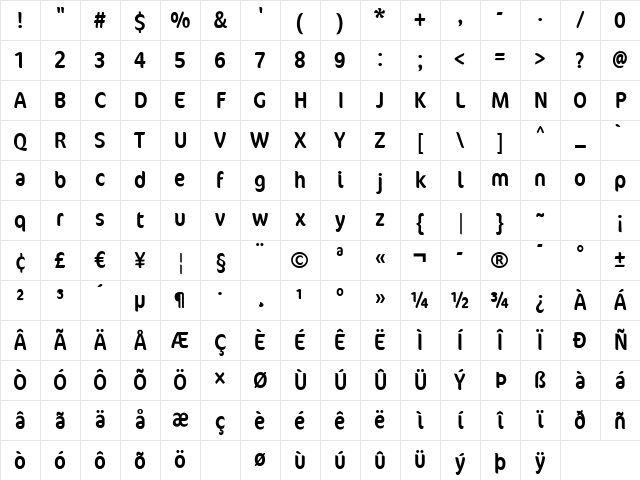
Cocon RegularCondensed Free Font
Cocon RegularCondensed
Style: RegularCondensed
Foundry: Evert Bloemsma, . Published by FontShop International. FontFont Release
Design Context for Cocon
Cocon is a composed and adaptable typeface that performs quietly and consistently across a wide range of design contexts. Its narrow stance lets it pack a punch even in space-constrained designs.
Who designed the Cocon RegularCondensed font?
This font was published by Evert Bloemsma, . Published by FontShop International. FontFont Release. Check the technical specs section for copyright and designer details.